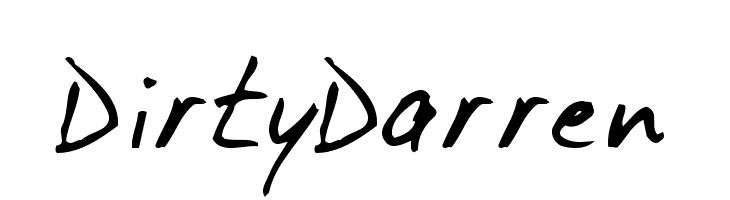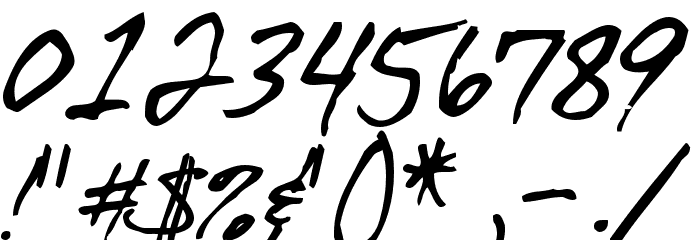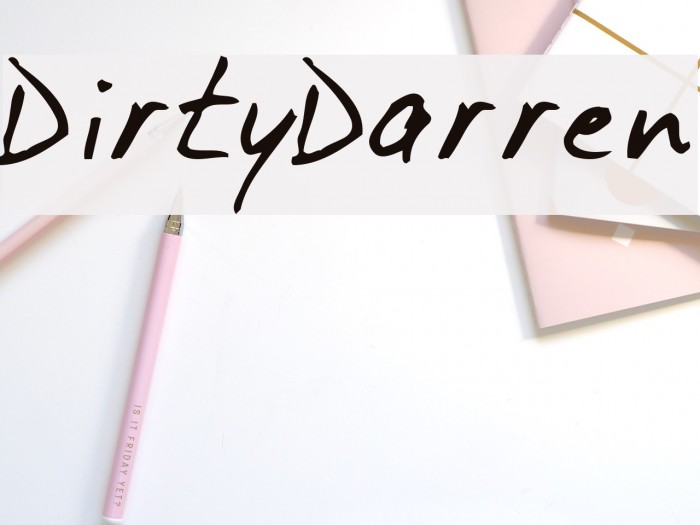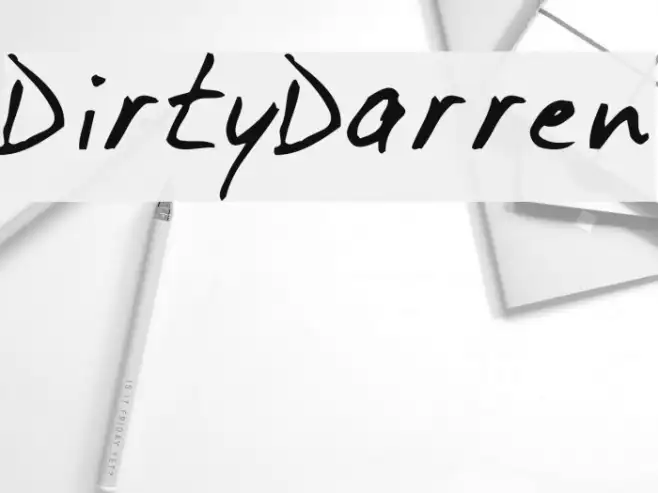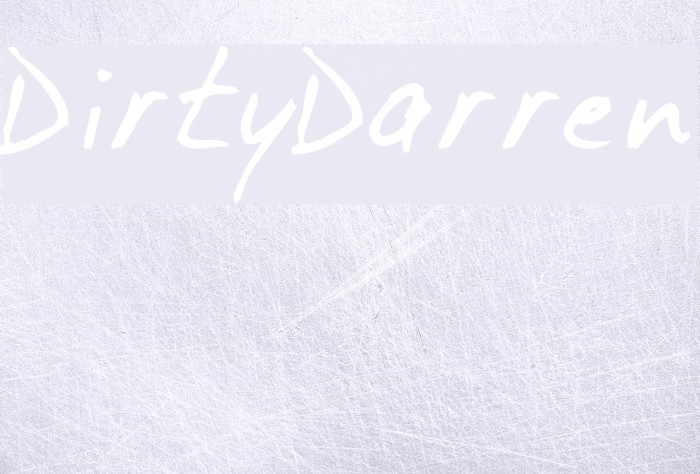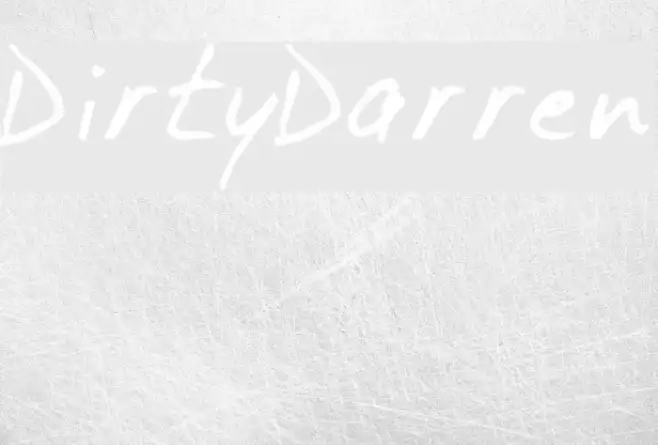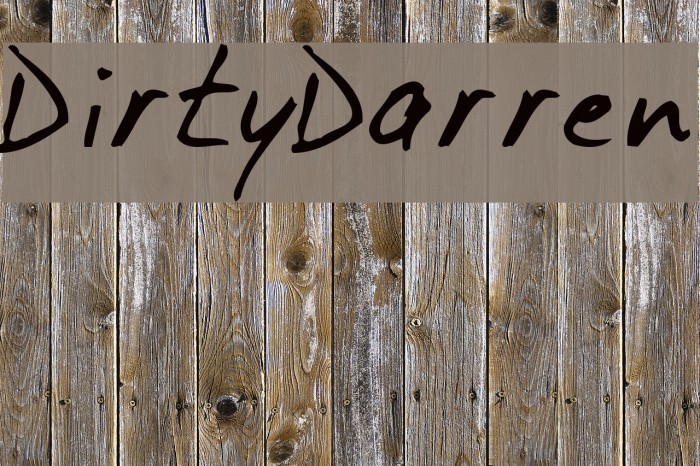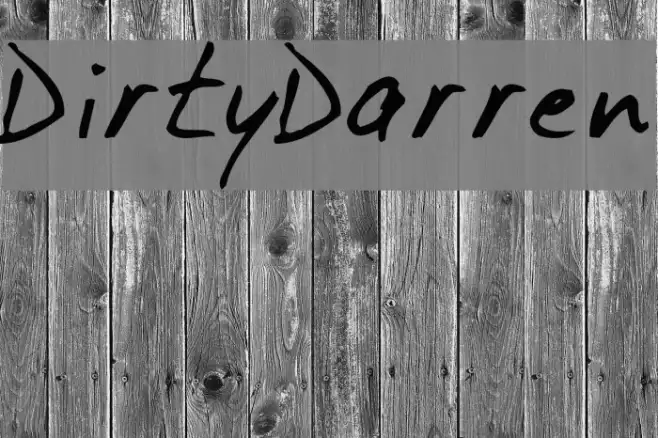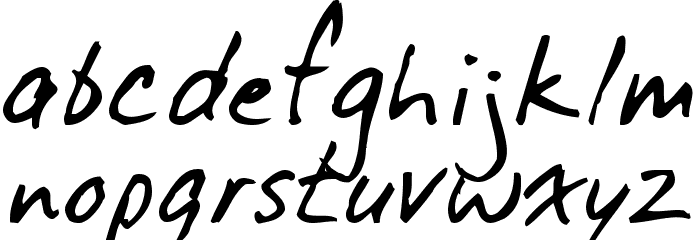
DirtyDarren Font
This font exudes a raw, energetic vibe with its hand-drawn, brush-like strokes. Each character is uniquely crafted, giving an impression of spontaneity and artistic flair. The uppercase letters are bold and dynamic, while the lowercase letters maintain a consistent flow, enhancing readability despite their irregular forms. Numbers and special characters follow the same expressive style, making them stand out. The overall appearance is informal and creative, suitable for projects that require a personal touch or an artistic edge.
A bold, hand-drawn font with energetic, brush-like strokes.